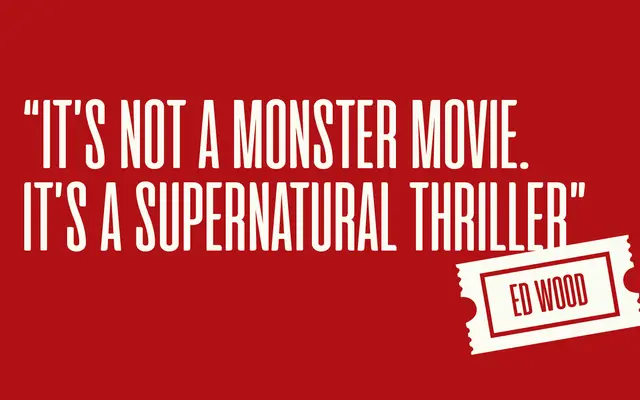
Cinematografica
Zetafonts · Francesco Canovaro · 2017
An ultra condensed small caps display typeface by Francesco Canovaro, originally commissioned for the Lucca Comics 2017 Festival advertising campaign.
Built across seven weights from Thin to Heavy, this ultra condensed design prioritises extreme space efficiency, making it well suited to movie posters and screen infographics. OpenType features include alternate glyphs and full-word ligatures triggered by typing an underscore after common words such as 'and', 'or' and 'the'. Script coverage extends to Latin, Greek and Cyrillic across 205 languages.
An ultra condensed small caps display typeface designed explicitly for space-saving contexts such as movie posters and screen infographics, placing it firmly in the display category with a highly specialised condensed style.